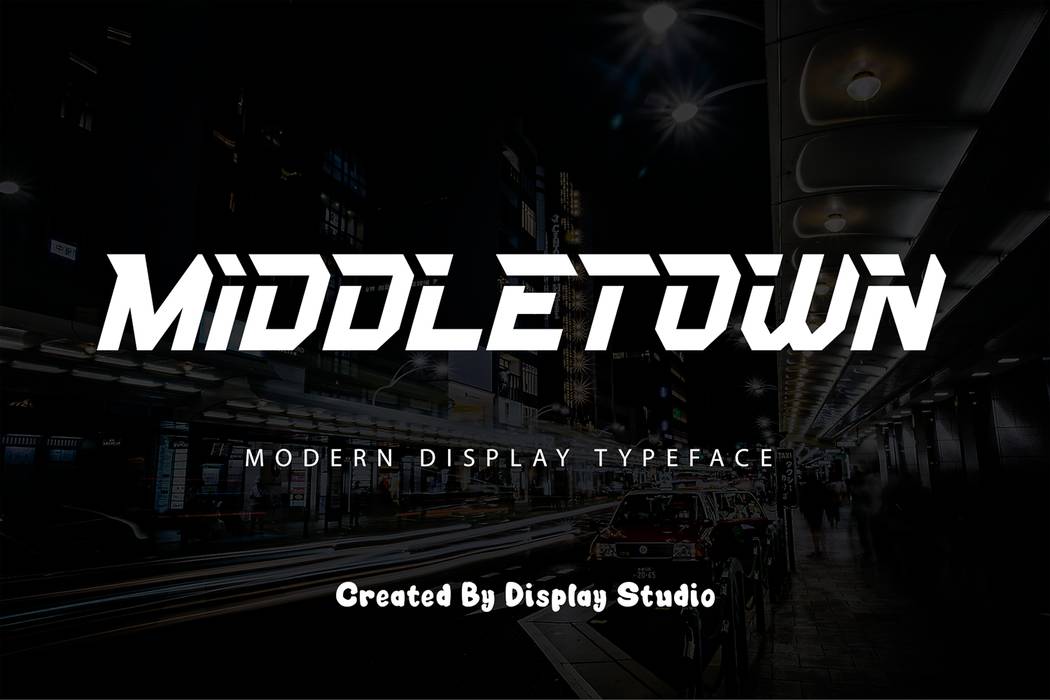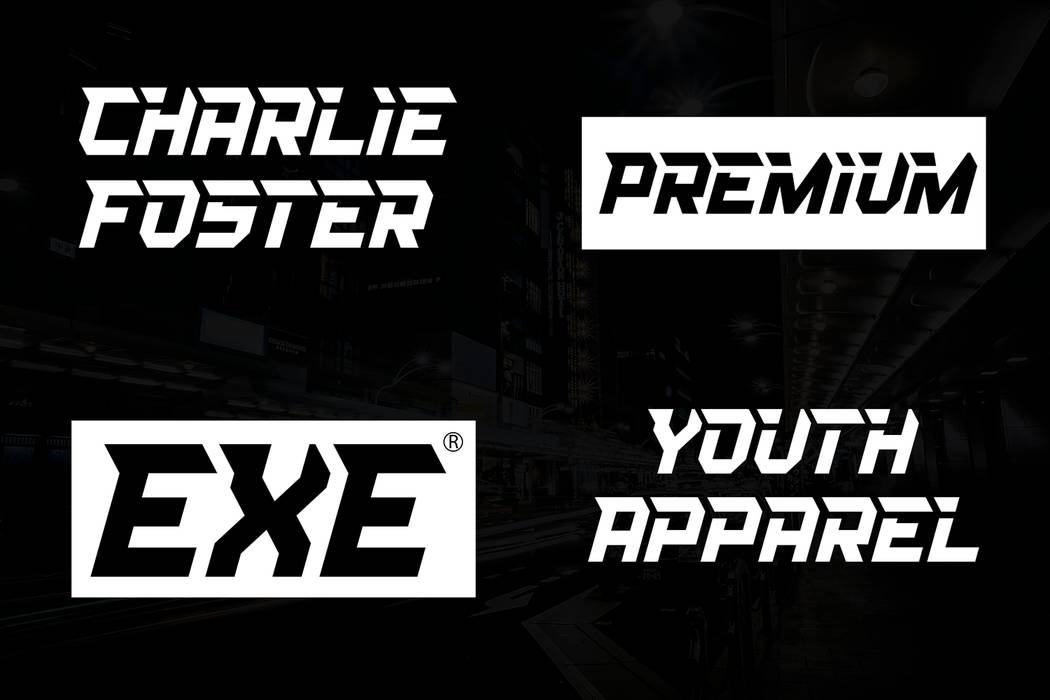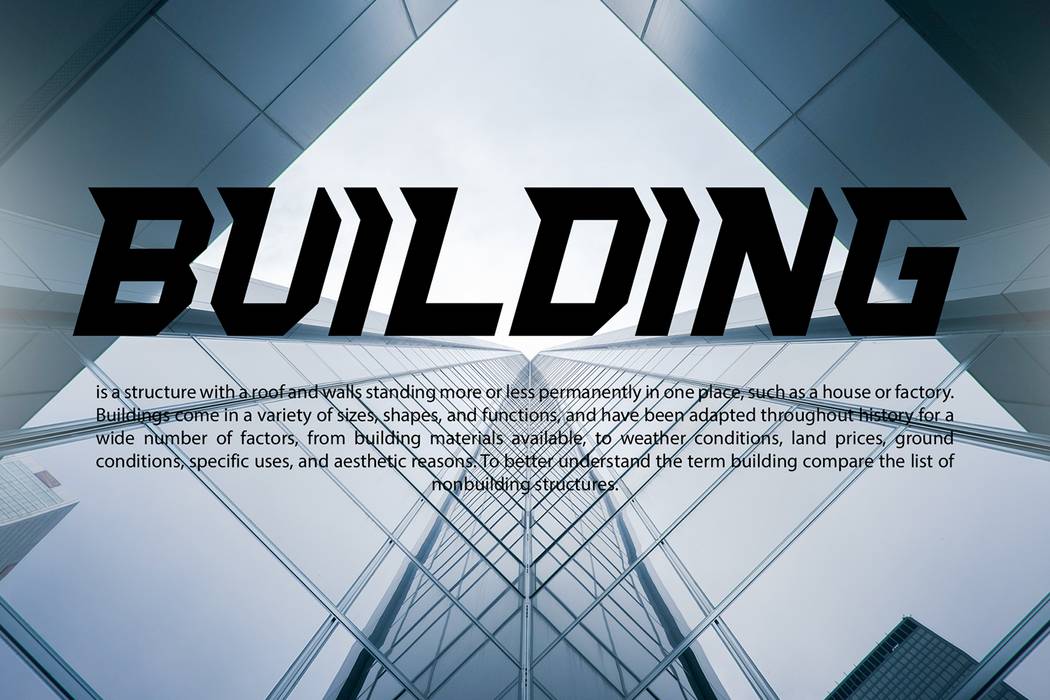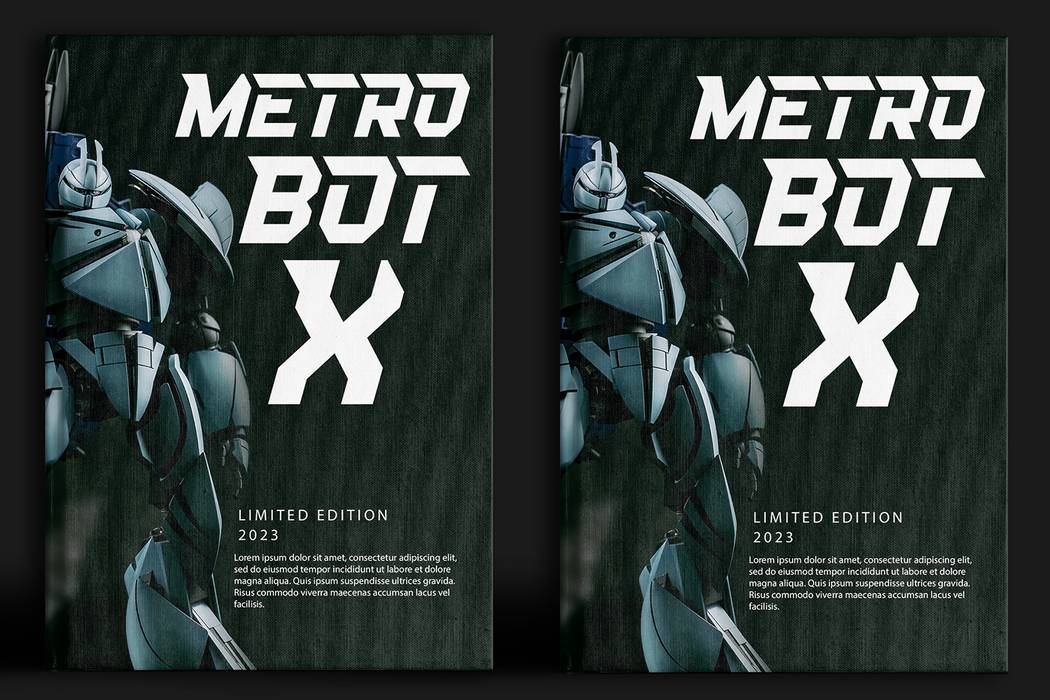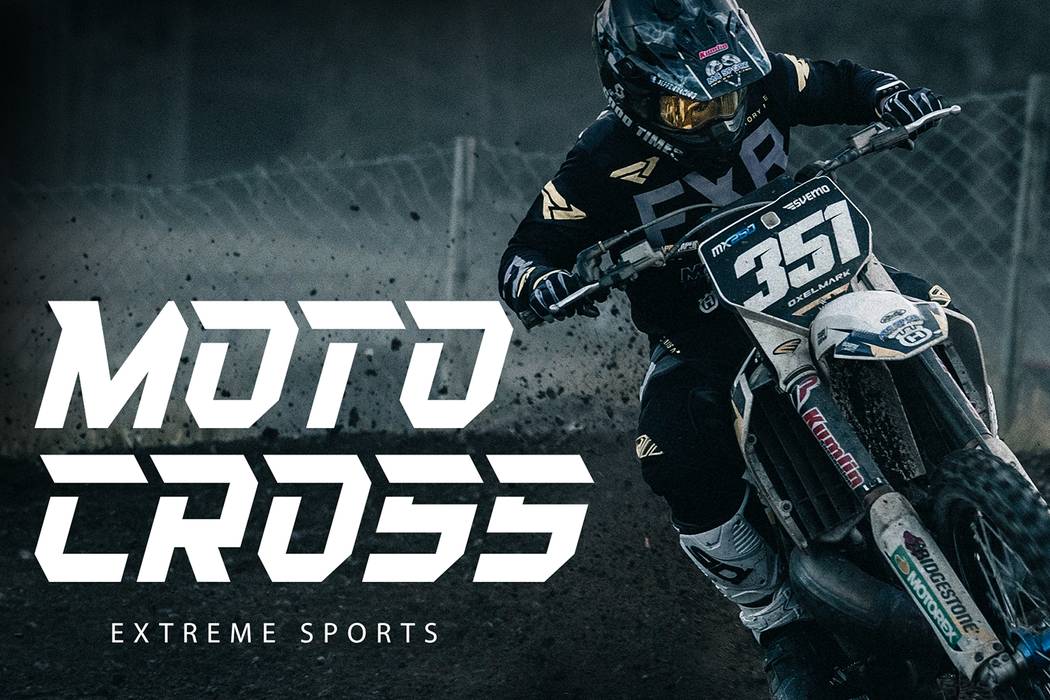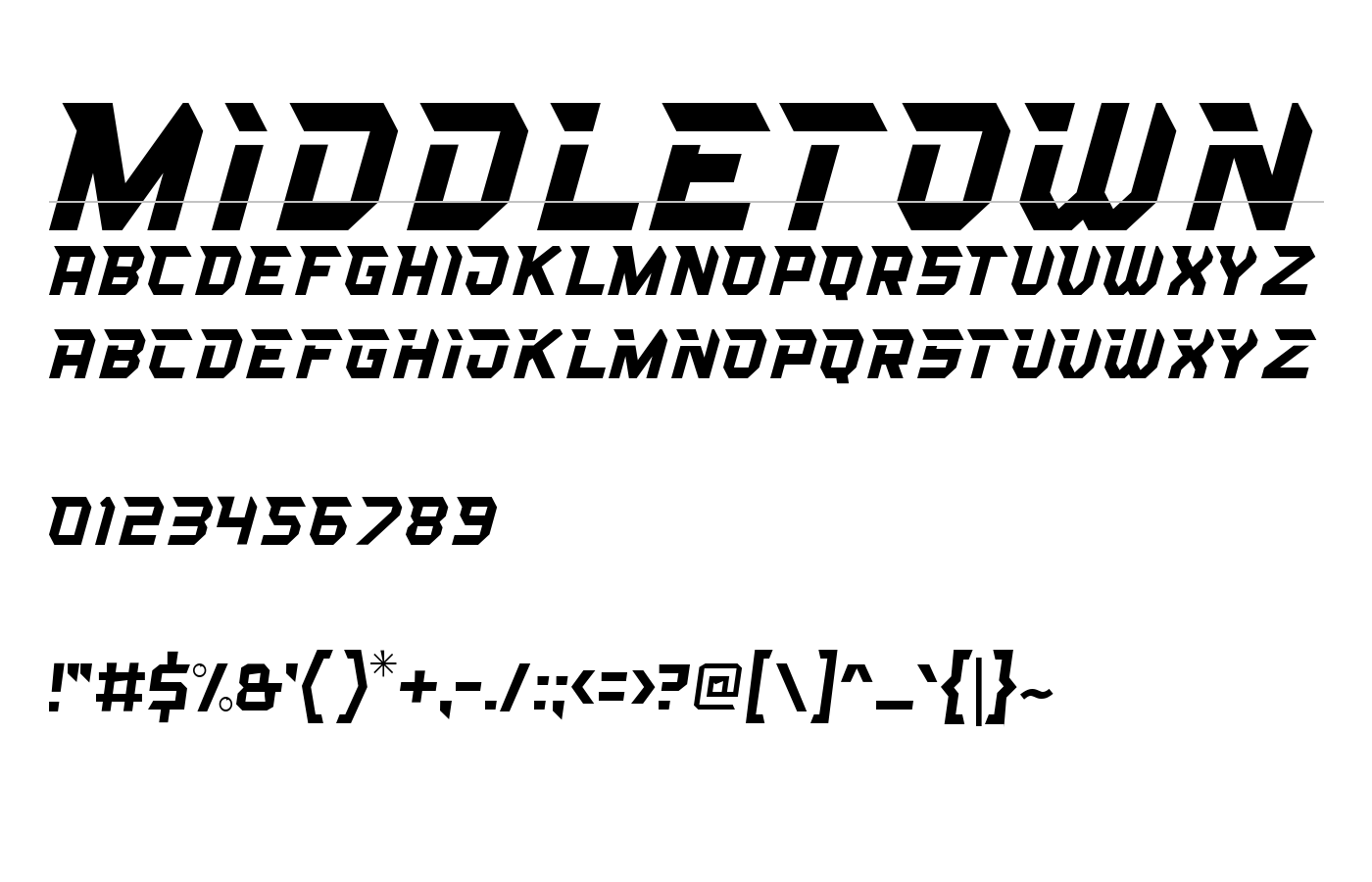
Middletown is a bold, angular sans serif font with a strong, futuristic vibe, characterized by its sharp, geometric cuts and italicized slant that suggest movement and energy. Its high contrast between thick and thin strokes, along with condensed proportions and unique letterforms, make it ideal for dynamic headlines, sports branding, or technology-focused designs that seek a modern, edgy feel. This font shines in attention-grabbing contexts where a bold, confident statement is needed.
Middletown Font
About Middletown Font
| Font family | Middletown Font |